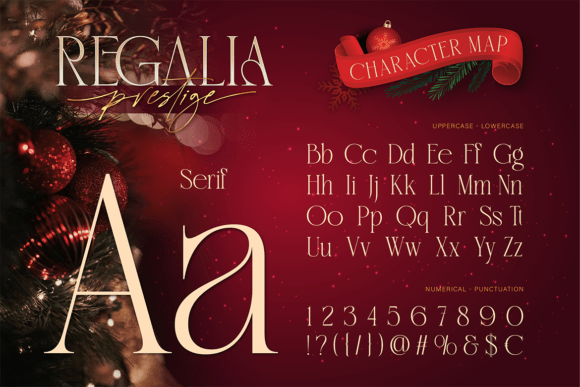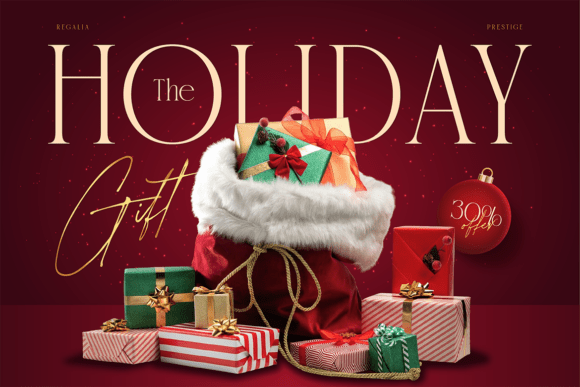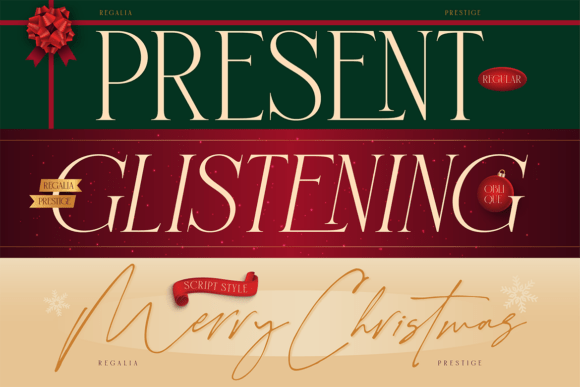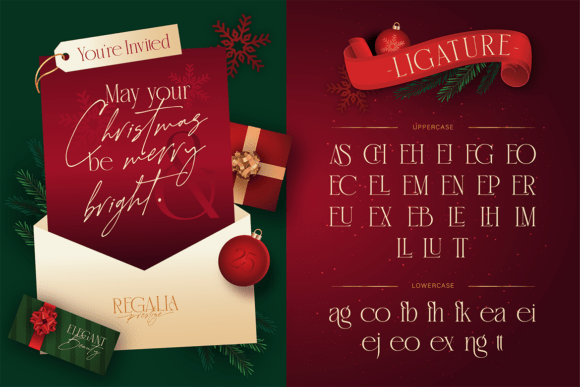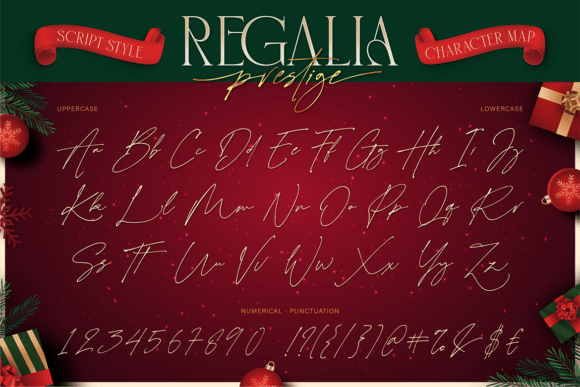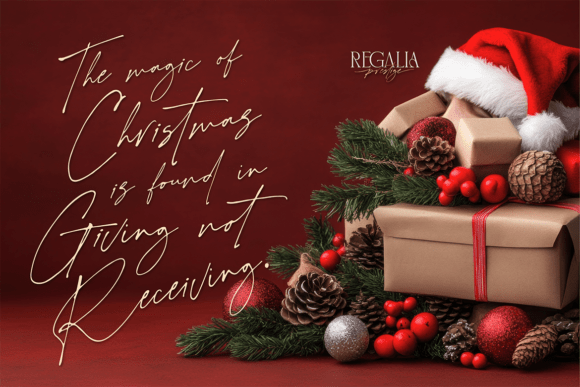
Introduction to Regalia Prestige Font Font
Fonts play a crucial role in design, and the Regalia Prestige Font font is a typeface that brings both character and versatility to any project. Whether you’re working on a branding project, a website, or a print design, the Regalia Prestige Font font offers a unique style that can elevate your work.
Experience the enchanting beauty of Regalia Prestige — a luxurious typeface duo that captures the elegance and warmth of Christmas.
Designed with sophisticated serif forms and a graceful handwritten script, this font brings a refined festive touch to every design The serif style embodies timeless beauty, perfect for magazine covers, invitations, and classy branding.
Key Features of Regalia Prestige Font Font
Why Choose Regalia Prestige Font Font?
The Regalia Prestige Font font is more than just a typeface – it’s a design tool that helps you communicate your message with style and clarity. Its unique character set and versatile design make it suitable for a wide range of applications, from elegant invitations to bold headlines.
With its carefully crafted letterforms and balanced proportions, the Regalia Prestige Font font ensures readability and visual appeal across all mediums.
What makes Regalia Prestige Font font special?
The Regalia Prestige Font font stands out with its unique design, exceptional readability, and versatility across various design applications.